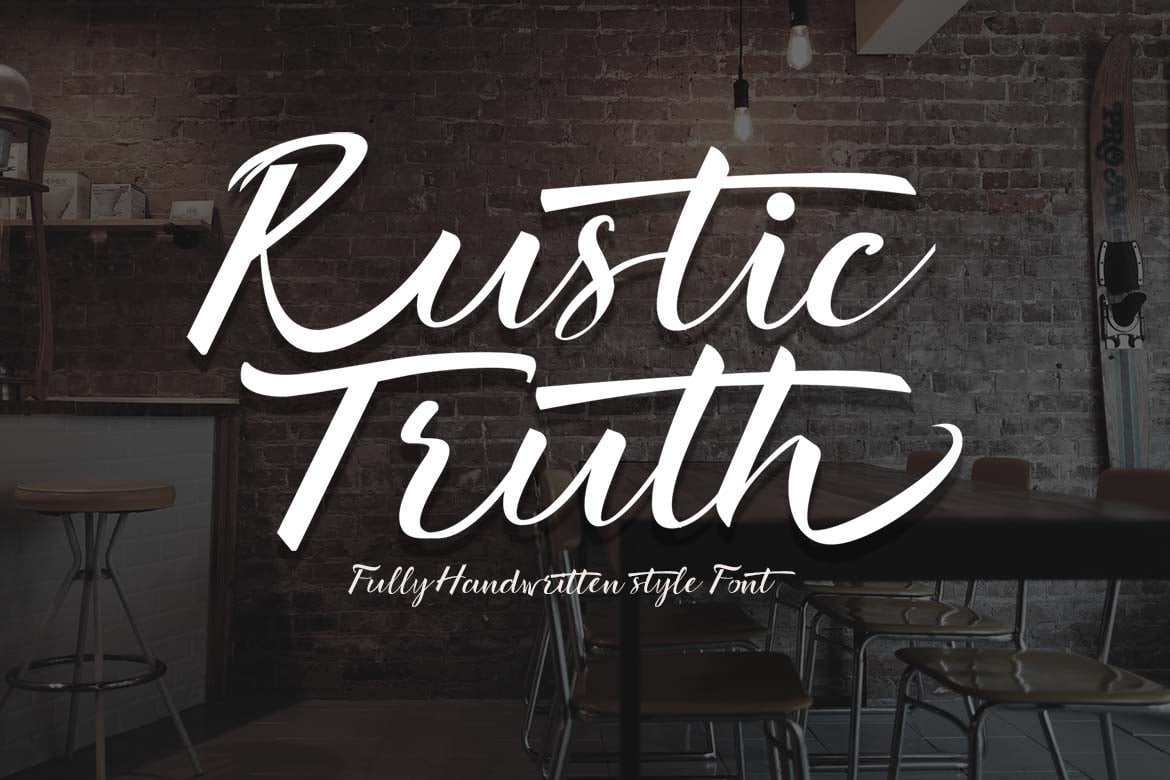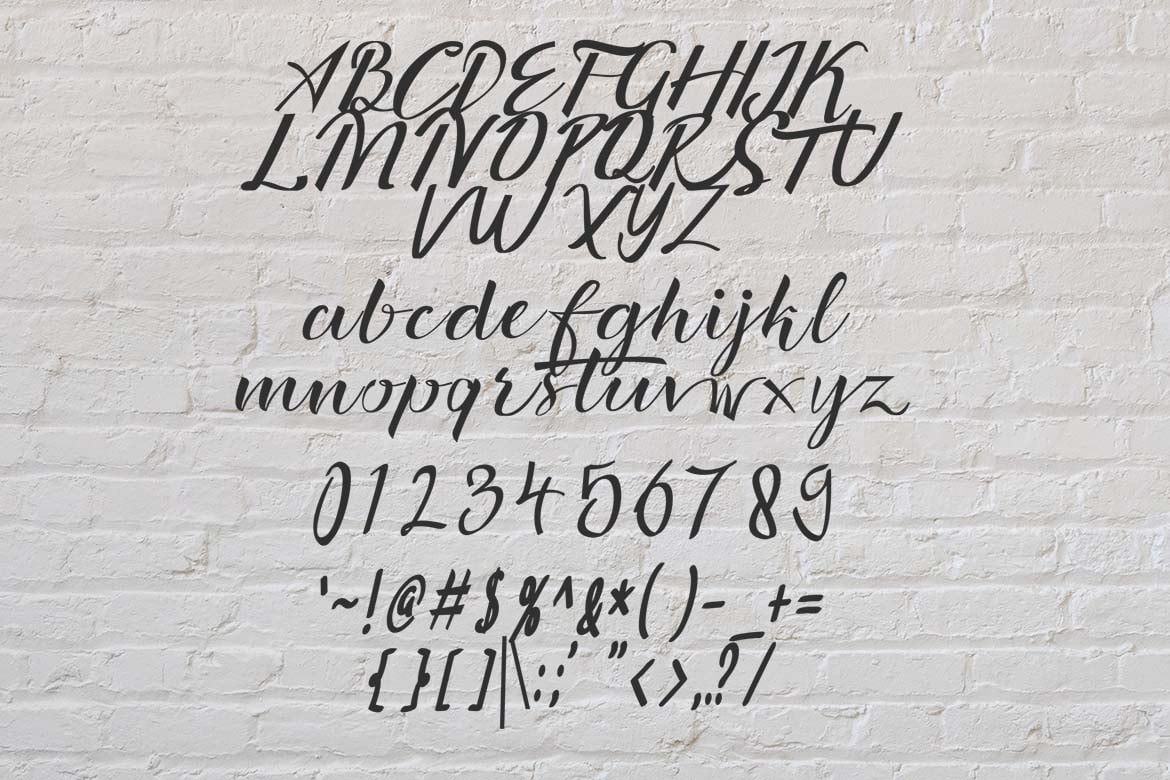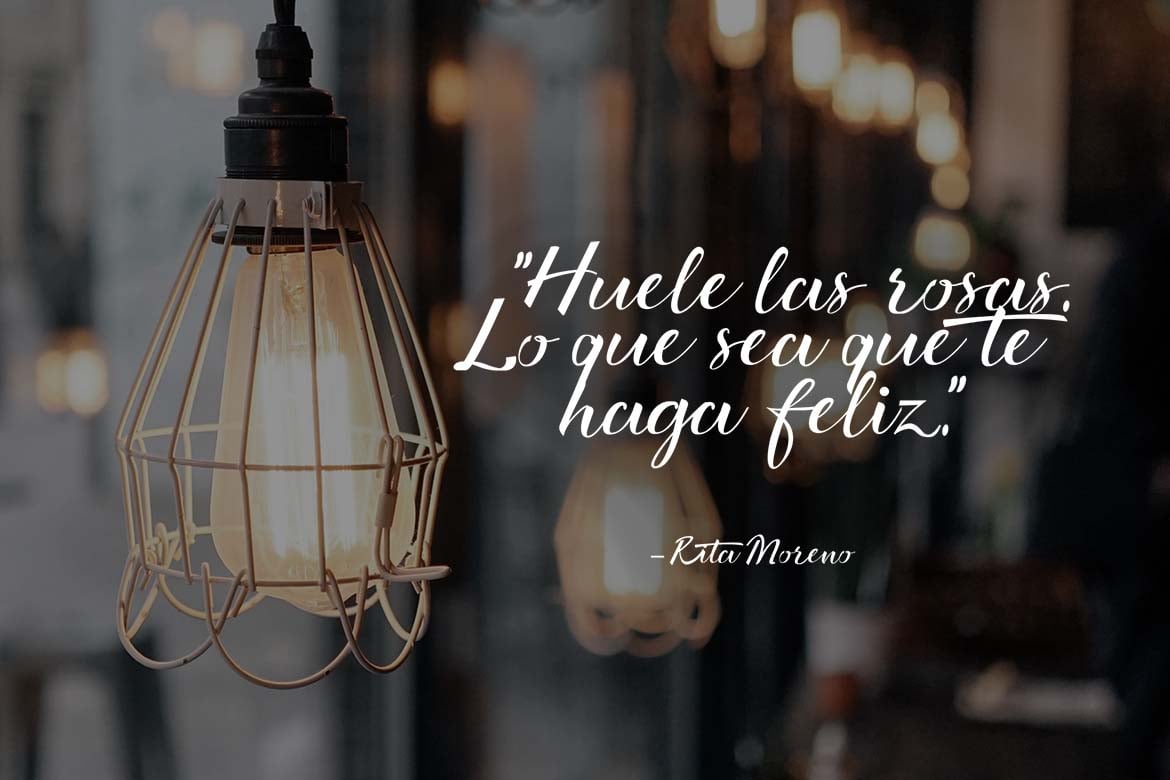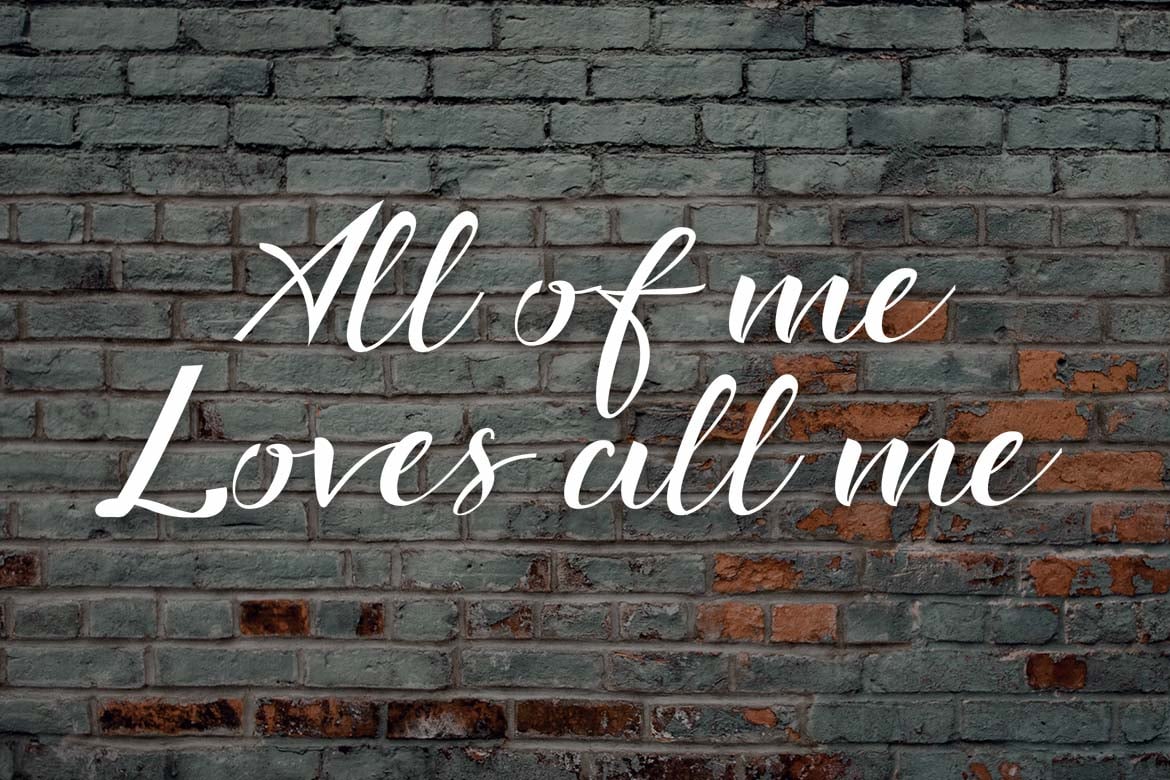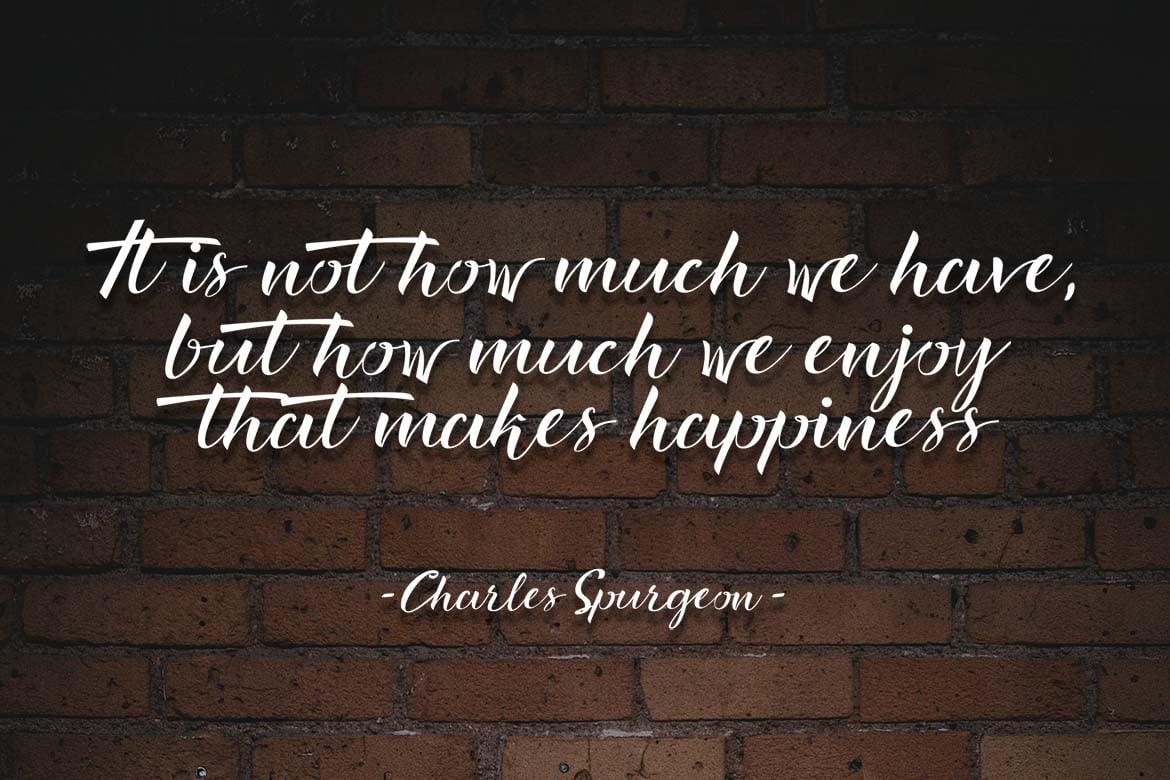
Rustic Truth – Script Font
Introducing Marthenetti, a beauty and elegant script font. Its unique and lovely feel.
So perfect for you who needs a typeface for logo designs, magazine, social media, brochure, and many more.
- Numerals